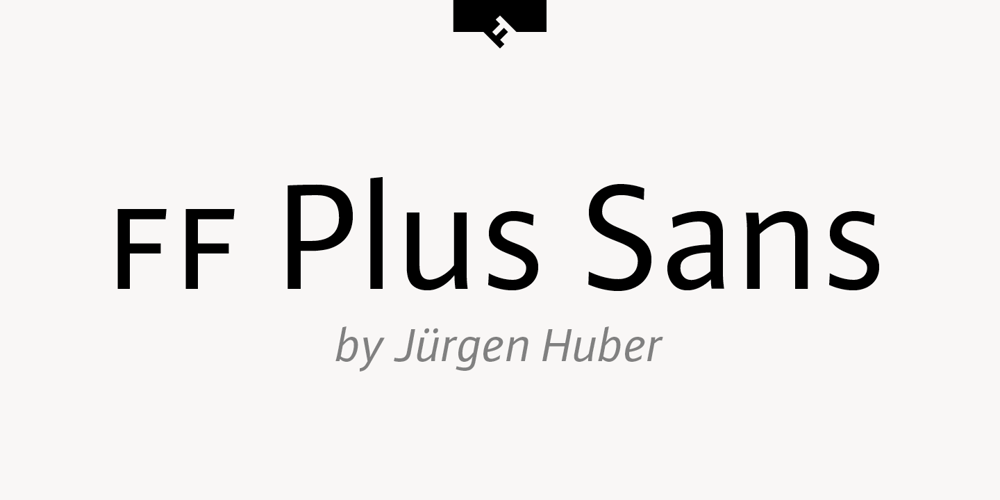
FF Plus Sans Font Family was designed by Jürgen Huber and published by FontFont. FF Plus Sans contains 8 styles and family package options. German type designer Jürgen Huber created this sans FontFont in 2003. The family has 8 weights, ranging from Regular to Extra Bold (including italics) and is ideally suited for advertising and packaging, editorial and publishing, logo, branding and creative industries, small text as well as wayfinding and signage. FF Plus Sans provides advanced typographical support with features such as ligatures, small capitals, alternate characters, case-sensitive forms, fractions, and super- and subscript characters. It comes with a complete range of figure set options – oldstyle and lining figures, each in tabular and proportional widths.